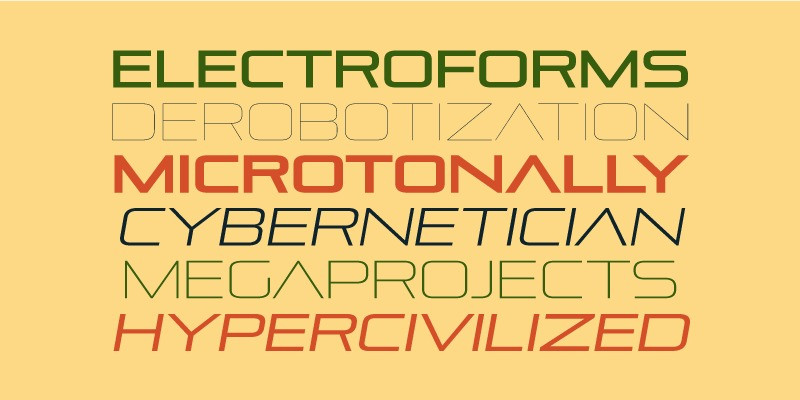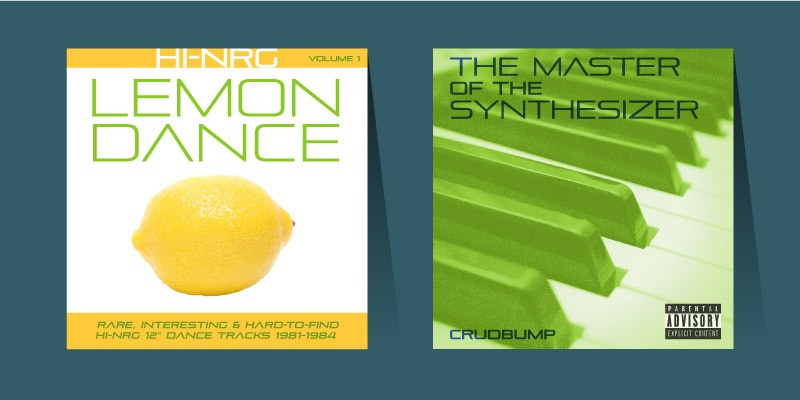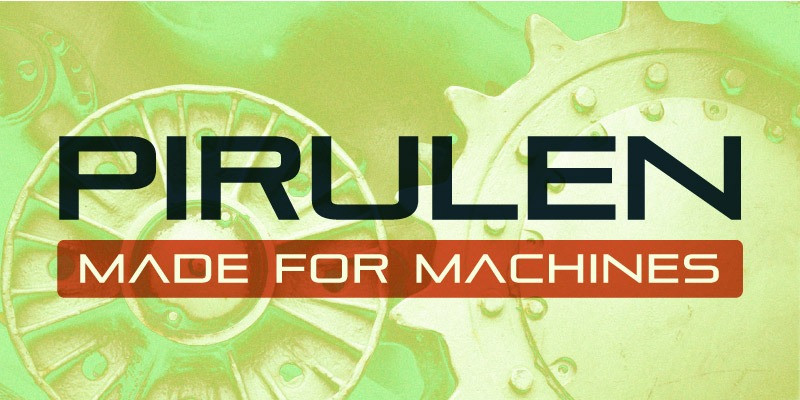
Pirulen Font
Pirulen Font, It has a distinctive futuristic design. Use it to create time-traveling movie posters for futuristic or extraterrestrial productions. Fantastic for creating unique cards and artwork for science fiction fans.This font was created to be used for universal events like game competitions, wall advertisements, and poster designs. Your design can look better with a simple combination. Purchase it right away to enjoy using it ahead of the competition.
Pirulen is a wide, techno font from outer space. An alternative barred A is included for finicky clients.